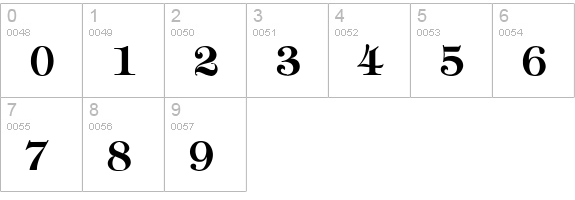
Timpani-Bold Font Details
Timpani-Bold is a strong, high-contrast variant in the Timpani typeface family \xE2\x80\x94 well suited to headlines, attention-grabbing titles, and strong calls-to-action.
Timpani-Bold is a remarkable font that exudes strength, elegance, and versatility. With its bold and prominent letterforms, this typeface commands attention and leaves a lasting impression. Whether used for headlines, titles, or branding purposes, Timpani-Bold stands out from the crowd with its distinct and captivating presence. This font's attention to detail is truly exceptional. Each letter is carefully crafted to perfection, with clean lines and impeccable curves, resulting in a harmonious and balanced design. The bold weight enhances the font's impact, making it suitable for a wide range of applications, from print to digital media. One of the best aspects of Timpani-Bold is that it is available for free. FontsMarket.com, the leading provider of high-quality fonts, generously offers this exquisite typeface for free download. This means that designers, creatives, and enthusiasts alike can access and utilize Timpani-Bold without any financial barriers. It's a rare opportunity to acquire a font of this caliber without having to spend a dime. Furthermore, the availability of Timpani-Bold for free download allows for endless creative possibilities. Designers can explore and experiment with this font, incorporating it into various projects and pushing the boundaries of design. Its versatility is truly remarkable, as it effortlessly adapts to different styles and themes, adding a touch of sophistication and professionalism to any composition. In conclusion, Timpani-Bold is a font that offers a perfect blend of strength, elegance, and versatility. Its bold nature demands attention and leaves a lasting impression. With its meticulous design and impeccable craftsmanship, this font is a true gem in the world of typography. And the fact that it is freely available to download at FontsMarket.com makes it even more desirable and accessible to designers and enthusiasts alike. So why wait? Take advantage of this incredible opportunity and elevate your designs with the captivating presence of Timpani-Bold.